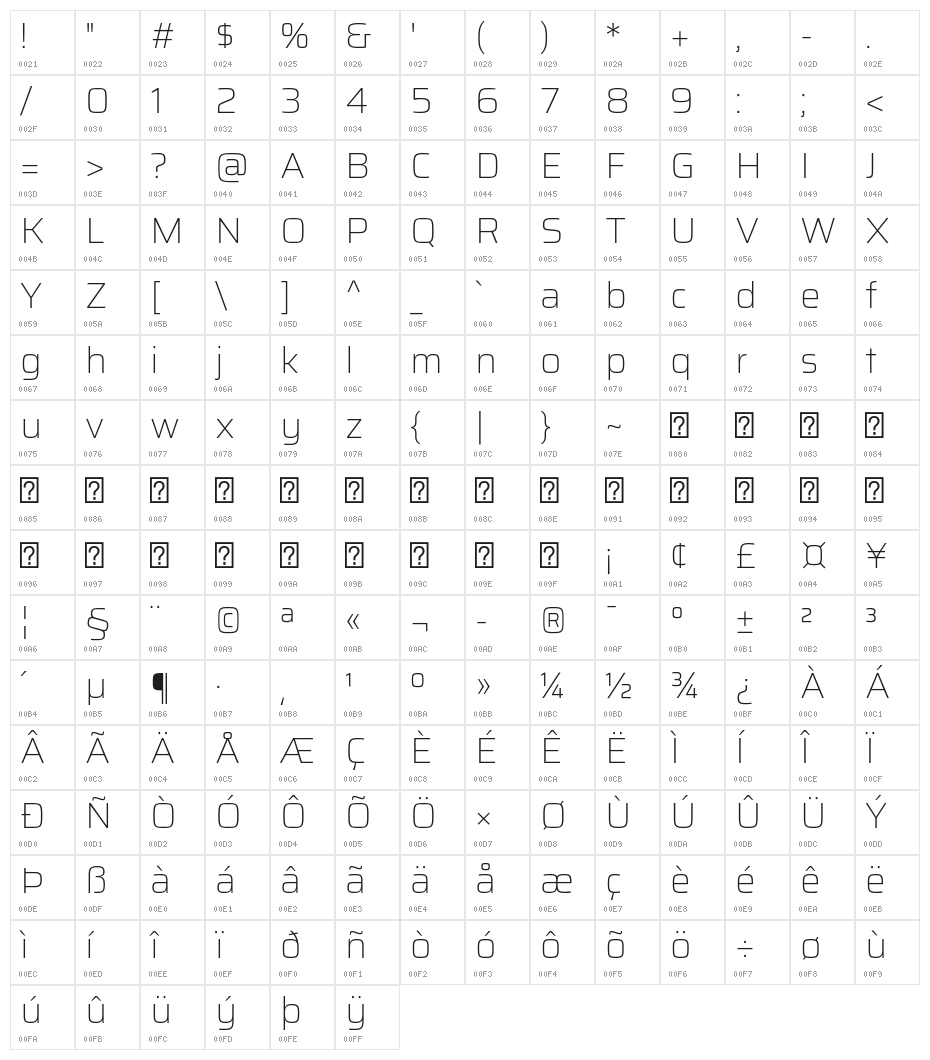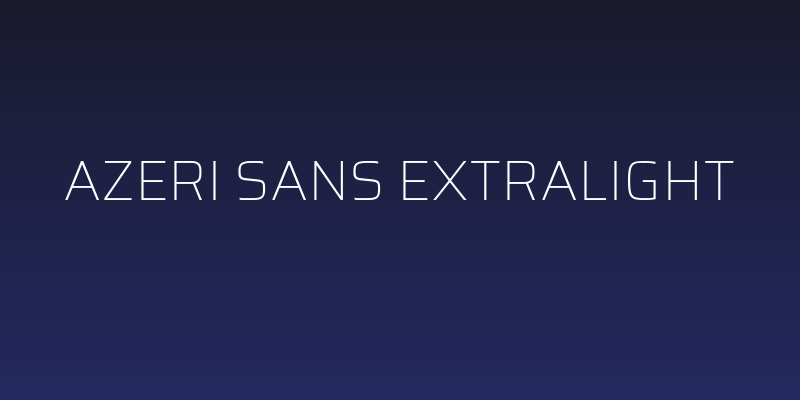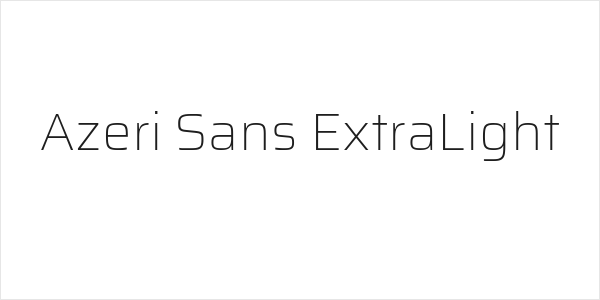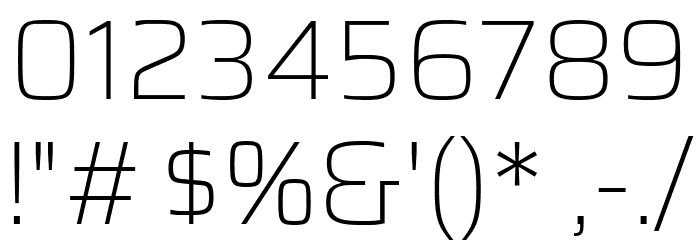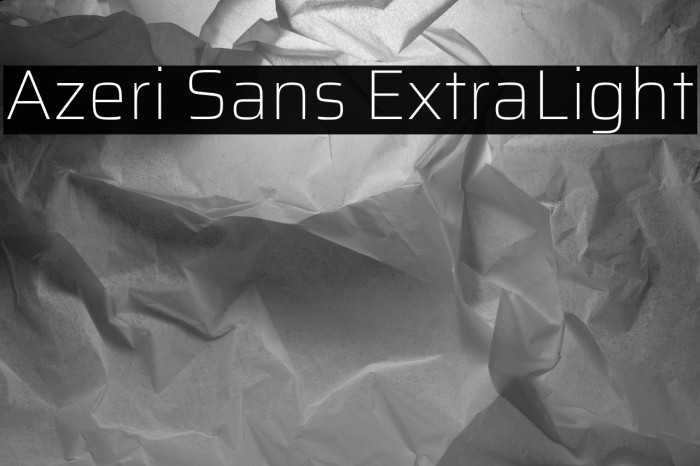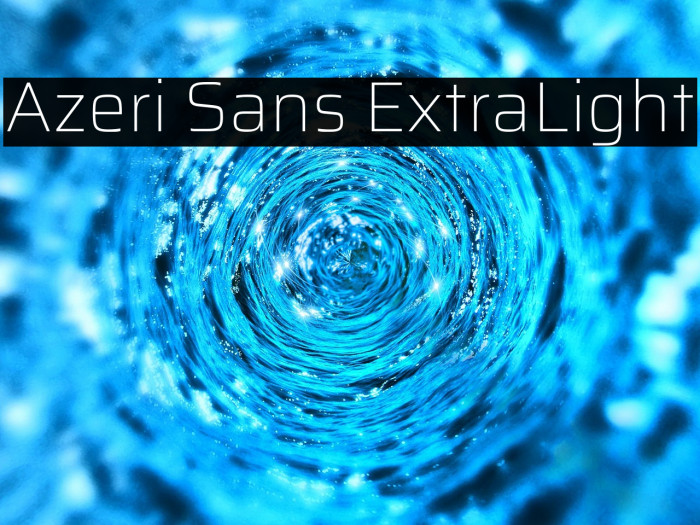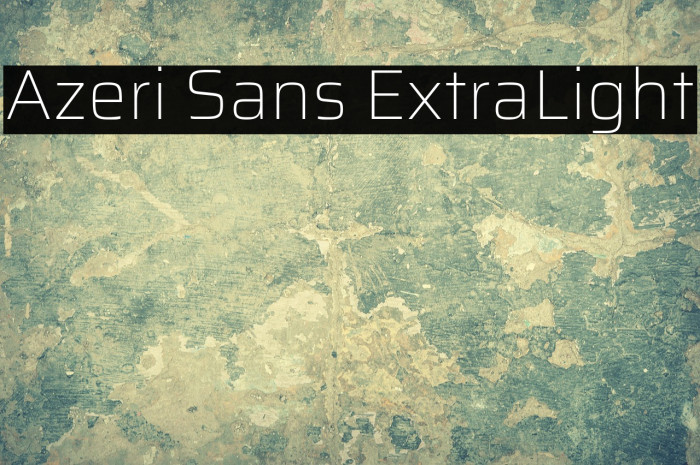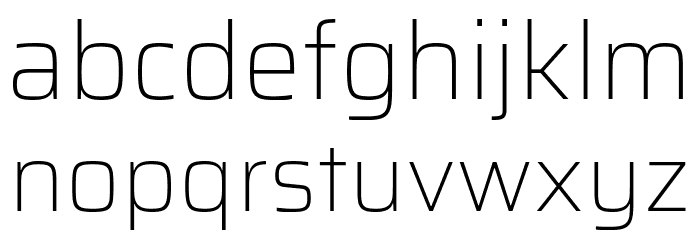
Azeri Sans ExtraLight Font
Azeri Sans ExtraLight Description
This font features a clean and modern sans-serif design with an extra light weight, giving it a sleek and minimalistic appearance. The characters are evenly spaced with a normal width, providing excellent readability. The strokes are consistent and uniform, offering a low contrast that enhances its contemporary style. The font includes a full set of uppercase and lowercase letters, numerals, and a range of special characters, making it versatile for various design needs. Its simplicity and elegance make it suitable for both digital and print media.
| Proposed Projects | Ideal for tech branding, minimalist posters, user interfaces, and clean editorial layouts. |